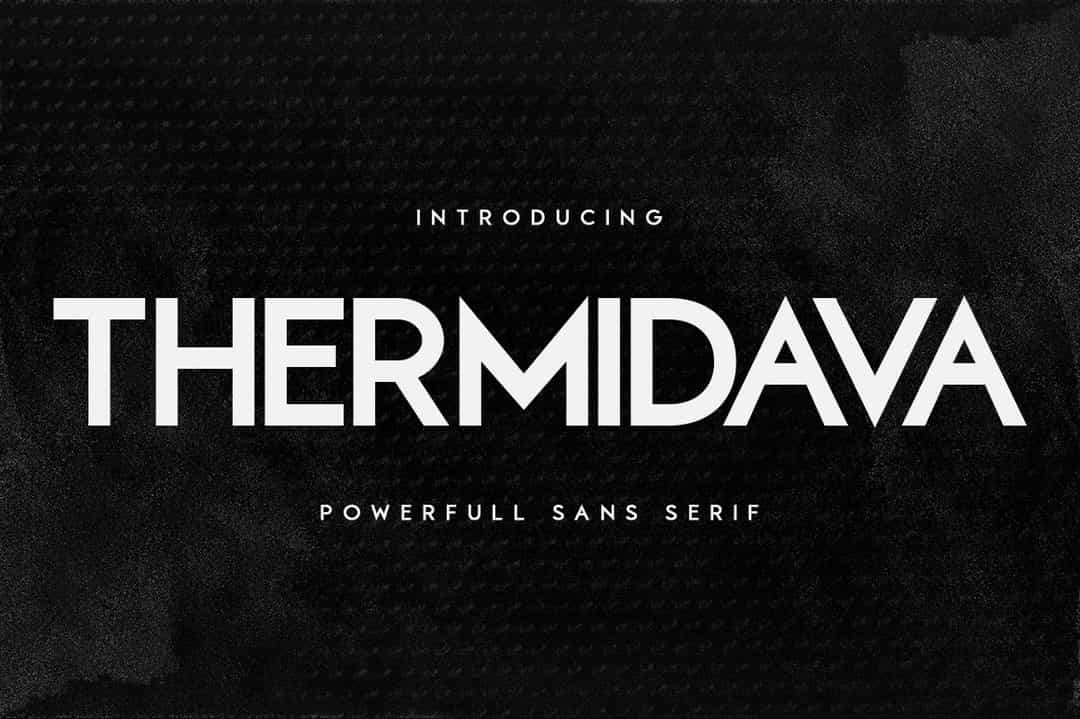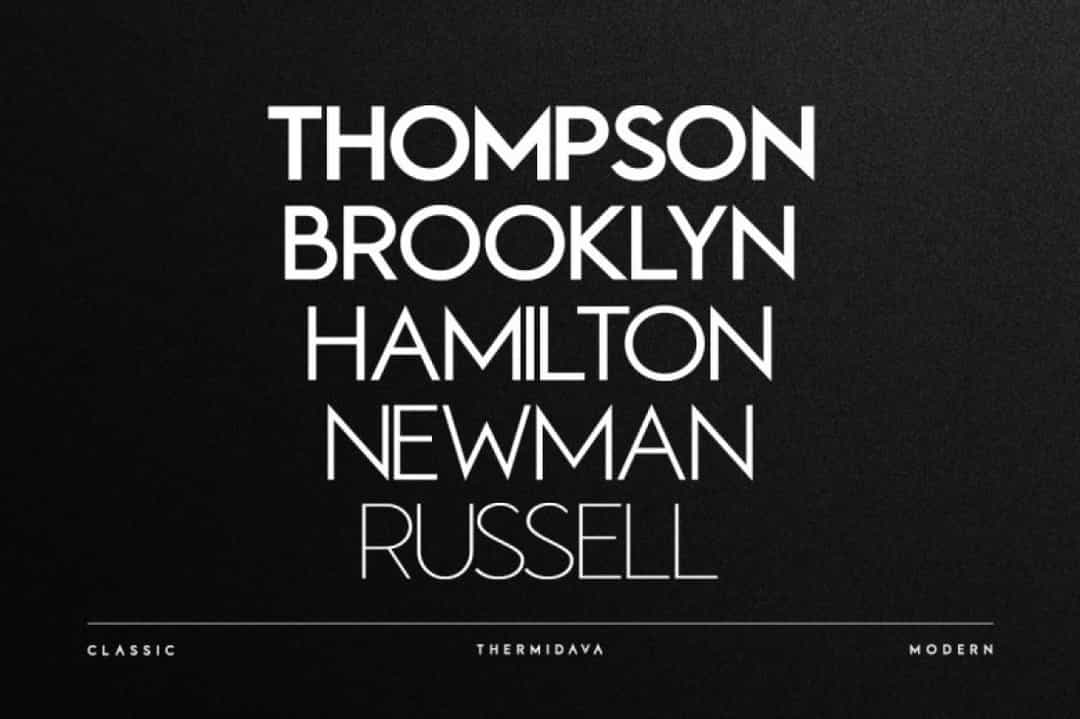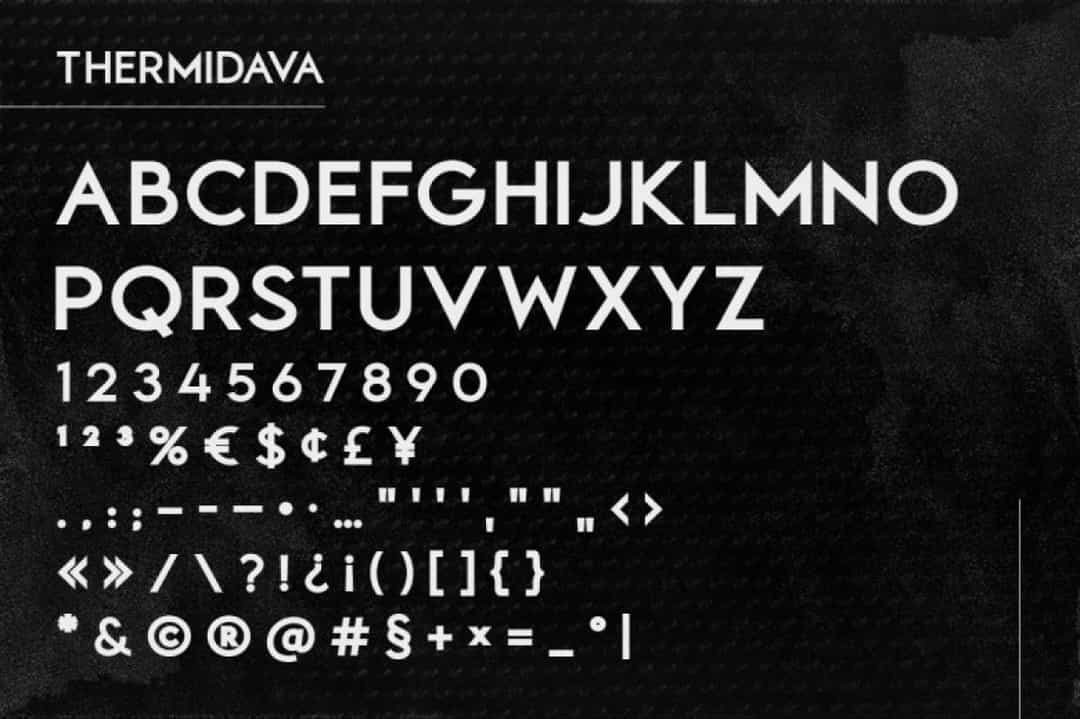
Yusa Studio has designed Thermindava Sans Serif Font as an eye-catching modern, contemporary and bold sans serif font collection that can easily blend in with an array of projects – add it into your creativity and watch how they stand out!